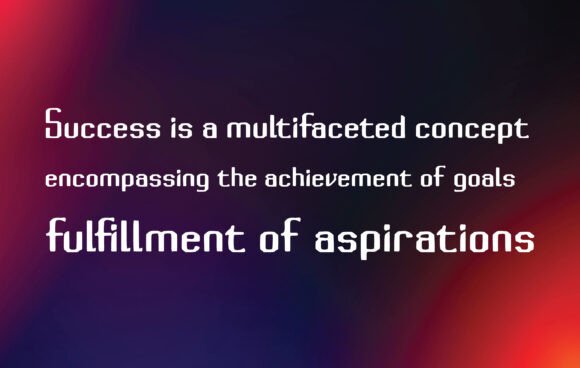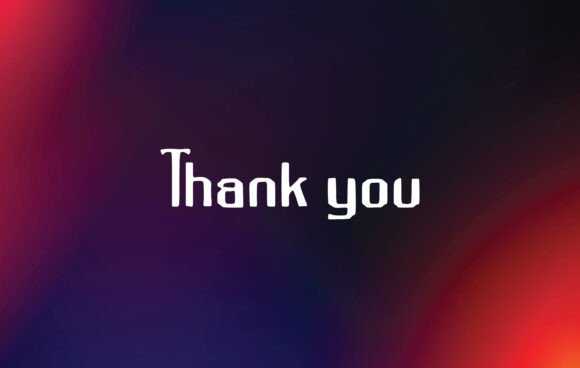
Ariana Font: Elevate Your Creative Projects with Elegance and Versatility
In the world of design, the right font can make all the difference. It’s the perfect blend of style, legibility, and creativity that can turn a good design into a great one. If you’re a designer, crafter, or simply someone who loves to dabble in creative projects, you’re in luck. Introducing Ariana Font, a stunning typeface designed to take your creative ideas to new heights. With its exceptional legibility and versatility, this font is poised to become your new favorite.
Designed for Excellence
Ariana Font is crafted with precision and passion, ensuring that it stands out in any design project. Its unique style is not just visually appealing but also highly legible, making it perfect for use as both title and body text. Whether you’re working on a magazine headline, a t-shirt design, social media graphics, branding materials, wedding invitations, or greeting cards, this font is up to the task.
One of the most significant advantages of Ariana Font is its incredible versatility. It’s a font that can adapt to various design needs, making it an indispensable tool in your design arsenal. Here are some of the many ways you can use Ariana Font:
• Magazine Headlines: Create eye-catching titles that draw readers in. The font’s elegant and modern look is sure to make your magazine stand out on newsstands.
• T-Shirts and Merchandise: Design custom apparel that’s both stylish and legible. Ariana Font ensures your message or logo looks great on any type of merchandise.
• Social Media Graphics: Enhance your social media presence with professional-looking graphics. This font helps you create engaging posts that capture attention.
• Branding: Develop a strong brand identity with a font that communicates elegance and professionalism. Consistency in your branding materials will be easier to achieve with Ariana Font.
• Wedding Invitations and Cards: Add a touch of sophistication to your wedding invitations, greeting cards, and other stationery. The font’s beauty and clarity make it perfect for special occasions.
Why Choose Ariana Font?
With so many fonts available, why should you choose Ariana Font for your projects? Here are a few compelling reasons:
• Legibility: In a world where readability is key, Ariana Font shines. Its clear and clean lines ensure that your message is conveyed effectively, regardless of the context.
• Elegance: This font exudes elegance and sophistication, making it suitable for projects that require a touch of class.
• Versatility: As mentioned earlier, Ariana Font’s adaptability is one of its strongest assets. It’s a font that can be used across various platforms and design types.
• Creativity: With Ariana Font, your creative possibilities are endless. It’s a tool that inspires creativity and helps bring your ideas to life.
Ariana Font is more than just a typeface; it’s a design companion that can help you elevate your creative projects. Its unique blend of legibility, elegance, and versatility makes it an excellent choice for designers and crafters alike. Whether you’re working on a professional project or a personal passion project, Ariana Font has the potential to take your ideas to the highest level. So why wait? Discover the creative possibilities with Ariana Font today and see how it can transform your designs.